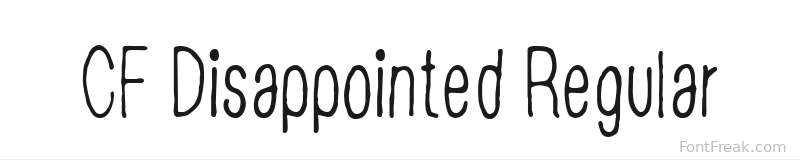
CF Disappointed Regular
About CF Disappointed Regular
CF Disappointed Regular by Cloutierfontes is a captivating display font that features a unique blend of playful and quirky elements, making it an excellent choice for various creative projects. This font falls under the decorative category, showcasing a distinctive style characterized by its light stroke weight and rounded letterforms. The letters exhibit a charming irregularity that adds a whimsical touch, while the ample spacing between characters enhances readability and visual appeal.
The font's playful design makes it ideal for a range of applications. It shines in contexts such as children's book covers, where its friendly aesthetic can engage younger audiences. Additionally, it works wonderfully for restaurant menus, especially those aiming for a casual and inviting vibe. Wedding invitations can also benefit from the font's charming nature, adding a touch of personality to the overall design. Moreover, CF Disappointed Regular is perfect for social media graphics, where attention-grabbing visuals are crucial for engagement.
The target audience for this font includes graphic designers, small business owners, and content creators looking to infuse their projects with a sense of fun and creativity. Whether you are designing marketing materials or personal projects, this font offers a versatile option that stands out.
What truly sets the CF Disappointed Regular font apart is its ability to evoke emotions while maintaining clarity. Its unique character adds a layer of charm that can transform ordinary text into something memorable. For those seeking a distinctive typeface that balances whimsy and professionalism, CF Disappointed Regular font free download is an excellent choice, providing both versatility and a touch of personality to any design endeavor.